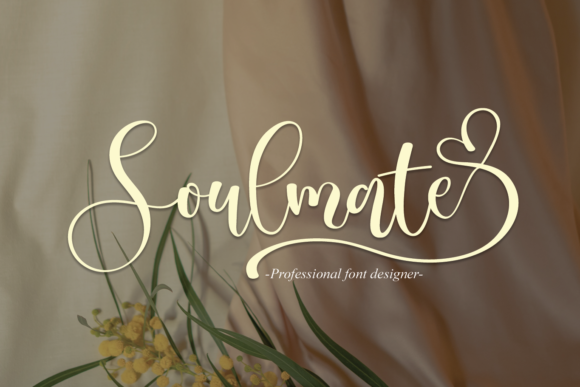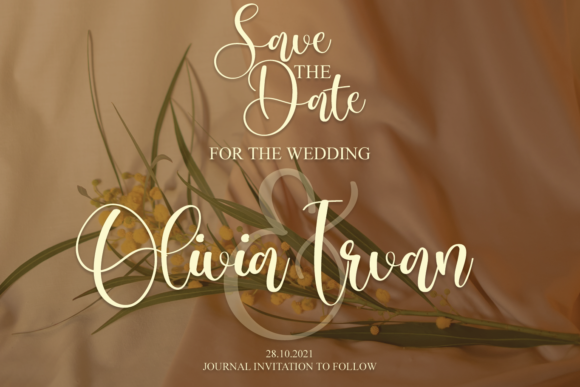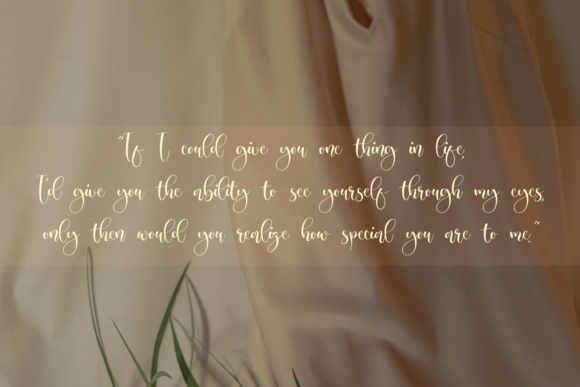
About Soulmate Font
Soulmate is a chic, refined script font that emanates sophistication and elegance. Its stylish alternates and ligatures make this font the perfect match for any project.